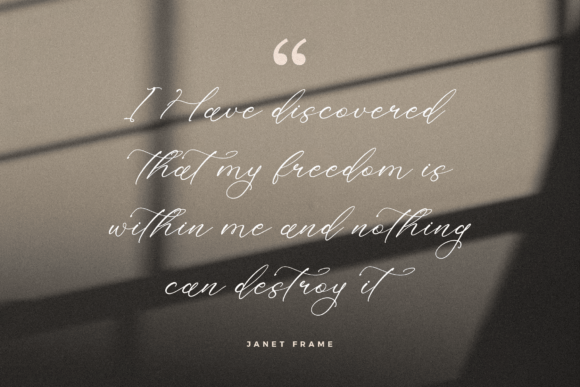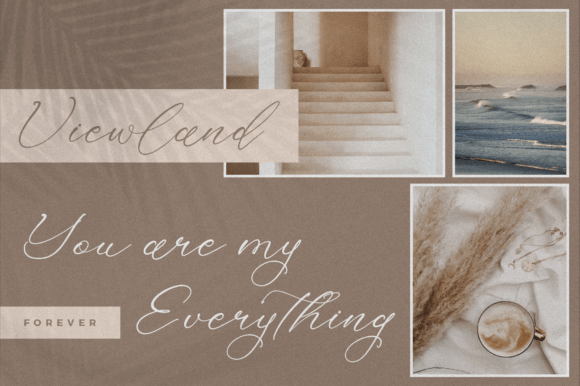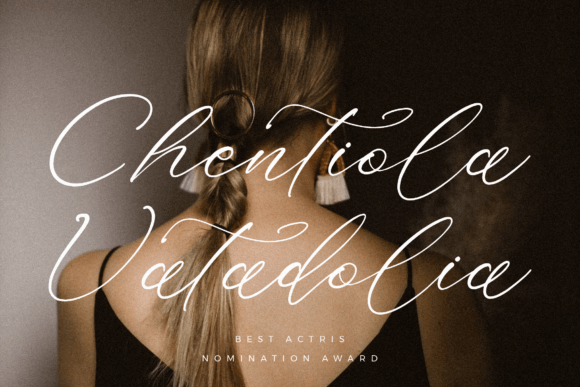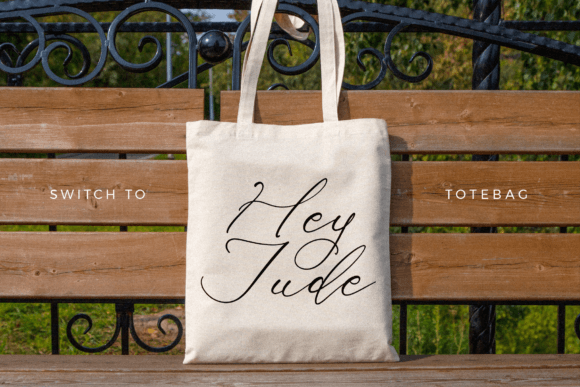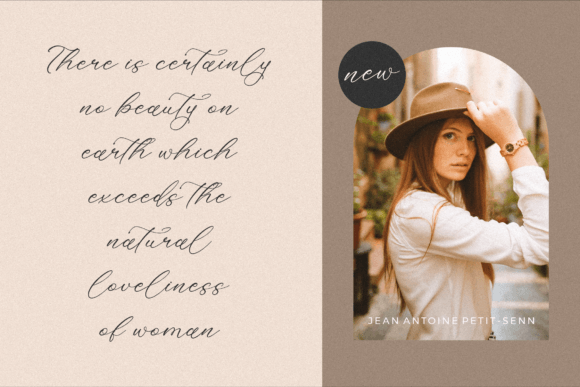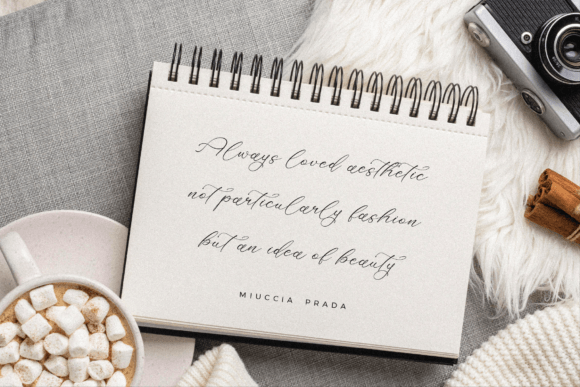
Introduction to Holicakes Serfinah Font
Proudly present Holicakes Serfinah – Beauty Script Font , created by Storytype, A luxury script that has own unique style & modern look.
This typeface is perfect for an elegant & luxury logo, book or movie title design, fashion brand, magazine, clothes, lettering, quotes, and so much more .